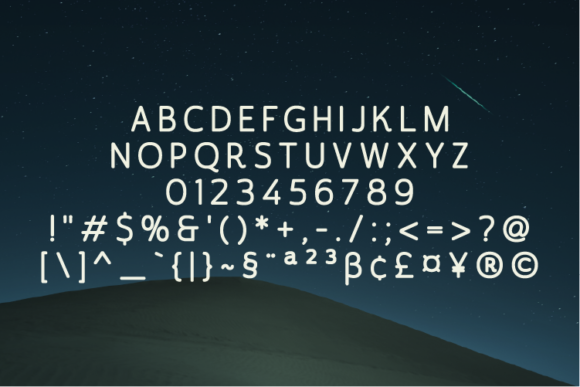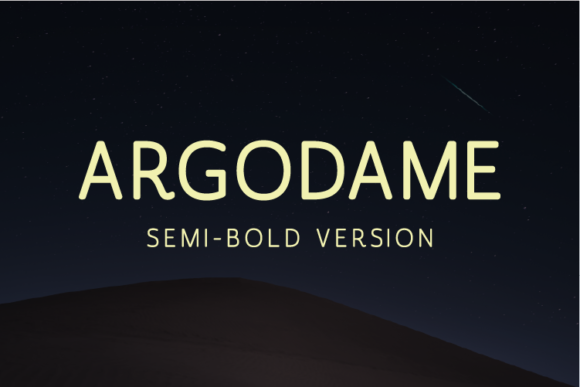
The Argodame Semi-Bold Font: A Friendly and Expressive Companion for Your Design Projects
I’ll never forget the time I was working on a branding project for a new coffee shop. I had spent hours agonizing over the perfect logo design, but something was missing. The font I had chosen just wasn’t quite right – it was too stiff, too formal, and didn’t quite capture the warm and cozy vibe of the coffee shop. That’s when I stumbled upon the Argodame Semi-Bold Font. With its soft terminals and rounded sans serif design, it was like a breath of fresh air. I knew immediately that it was the perfect fit for the project.
An Honest Review of Argodame Semi-Bold Font
- ✨ Friendly and expressive look that’s perfect for headlines, logotypes, and branding
- ✅ Modern and contemporary style that still feels approachable and down-to-earth
- ✅ Classic proportions that make it versatile and easy to pair with other fonts
- ✨ Soft terminals that add a touch of warmth and personality to any design
While Argodame Semi-Bold Font is an amazing font, it’s not perfect. Here are a few things to keep in mind:
- ⚠️ Some users have reported that the font can be a bit tricky to read at very small sizes – so be sure to test it out before committing to a particular design.
- 🤔 While the font is incredibly versatile, it may not be the best choice for very formal or traditional designs – it’s a bit too playful for those types of projects.
The Story Behind Argodame Semi-Bold Font
While the true story behind Argodame Semi-Bold Font may be unknown, it’s easy to imagine that it was created with the goal of bringing a little bit of warmth and personality to the world of design. Perhaps the designer was tired of stiff and formal fonts, and wanted to create something that felt approachable and friendly. Whatever the inspiration, it’s clear that Argodame Semi-Bold Font has made a lasting impact on the design world.
| Font Name | Argodame Semi-Bold Font |
| Author | Nan Design |
Q: What is the best way to use Argodame Semi-Bold Font?
A: Argodame Semi-Bold Font is incredibly versatile, but it’s particularly well-suited for headlines, logotypes, and branding.
Q: Is Argodame Semi-Bold Font easy to read?
A: Generally speaking, Argodame Semi-Bold Font is very readable – but as with any font, it’s always a good idea to test it out at different sizes and in different contexts.
Q: Can I use Argodame Semi-Bold Font with other fonts?
A: Absolutely! Argodame Semi-Bold Font has classic proportions that make it easy to pair with a wide range of other fonts.